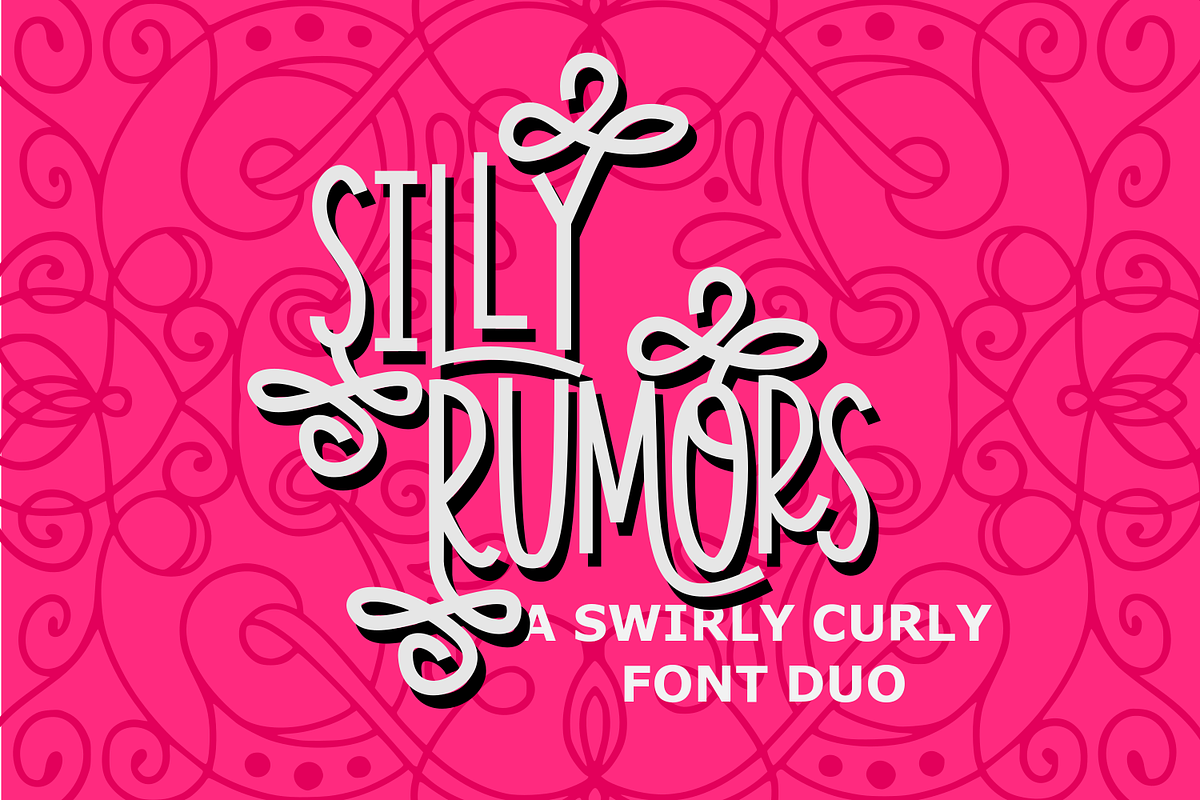
Inject charm and creativity into your designs with Silly Rumors Font Duo Free Download — a playful pairing of a bold handwritten script and a clean sans serif. This dynamic duo is perfect for logos, social media graphics, stationery, product packaging, and anything that needs a fun, youthful vibe with a touch of sophistication.
The script font adds a whimsical, hand-drawn flair, while the sans serif balances things out with a modern, minimalist edge. Whether used together or separately, they offer tons of flexibility for designers experimenting with visual hierarchy and style. Included are uppercase and lowercase characters, numerals, and punctuation, ideal for concept development and mockups.